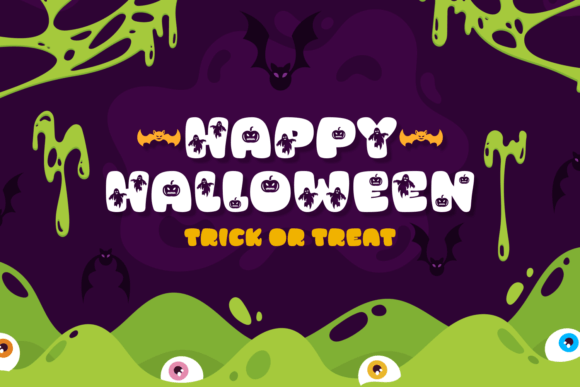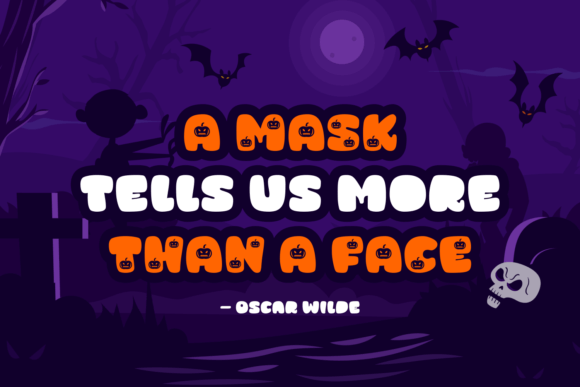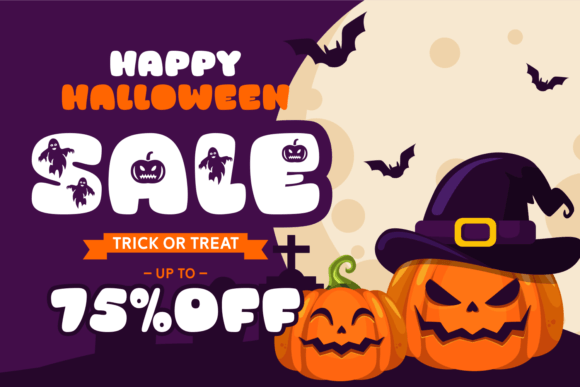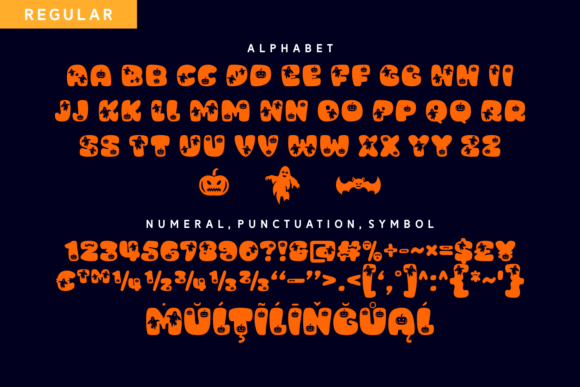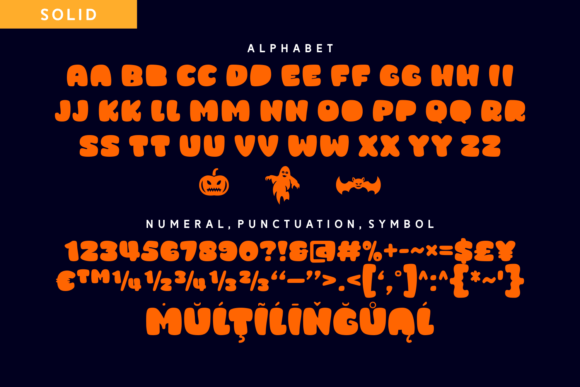
Introduction to Scary Scream Font
Scary Scream is a spooky and scary decorative font.
It will make the perfect match for any Halloween-themed project Use it for online games, stationery, school supplies font, poster, movie title, youtube covers, thumbnails, social media page covers, and many more.